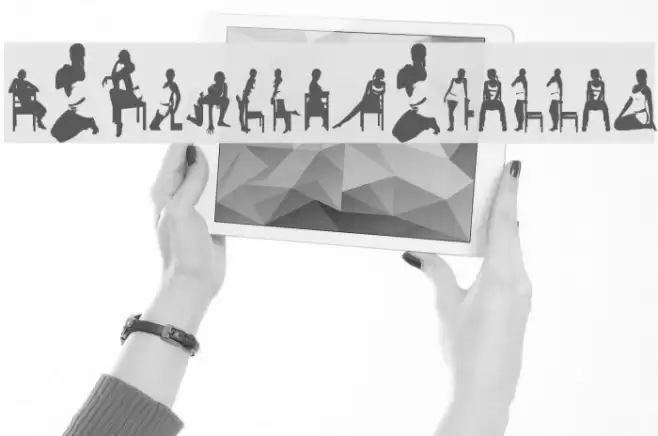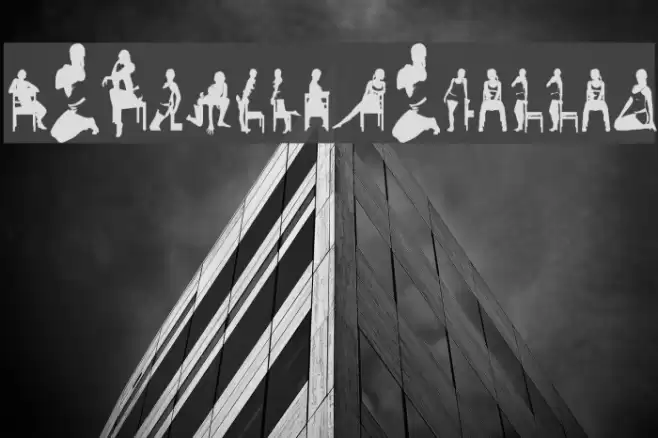
WomanSilhouettes Font
WomanSilhouettes Description
A decorative display set featuring various black silhouettes of women in different seated and standing poses, often interacting with chairs. The figures are solid, with no internal detail, creating a bold and graphic look.
Decorative silhouette set of women in various poses from Dingbats fonts.
- Proposed Projects: Posters, branding, editorial illustrations, website graphics, fashion design, event flyers.
- Overall Style: Decorative, Modern, Graphic
- Use Case: Logos, Posters, Decorative graphics